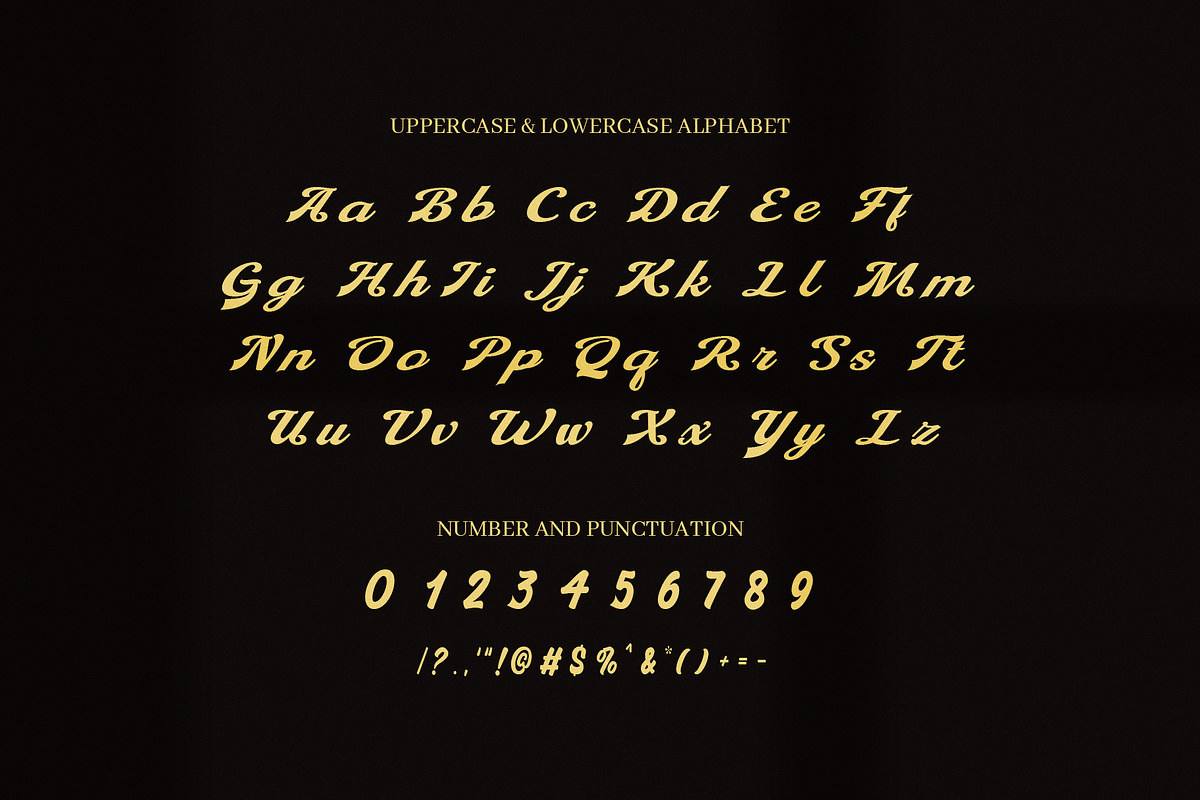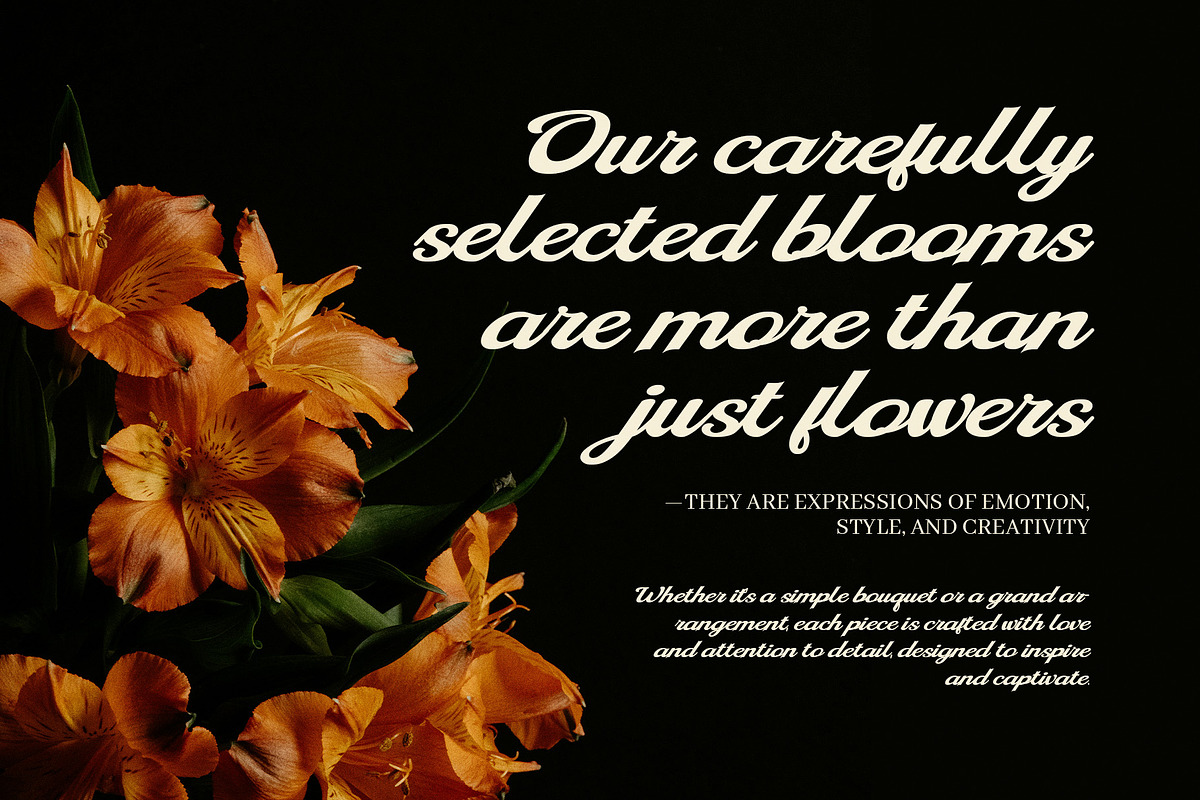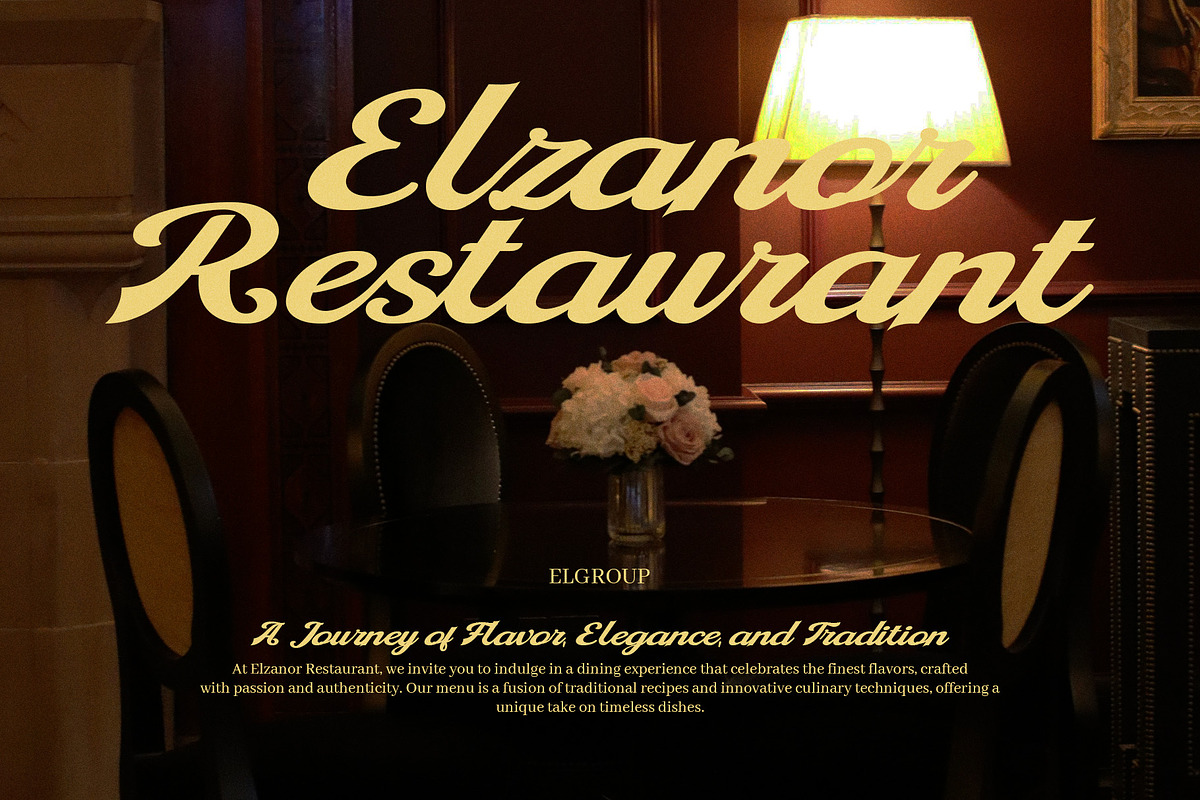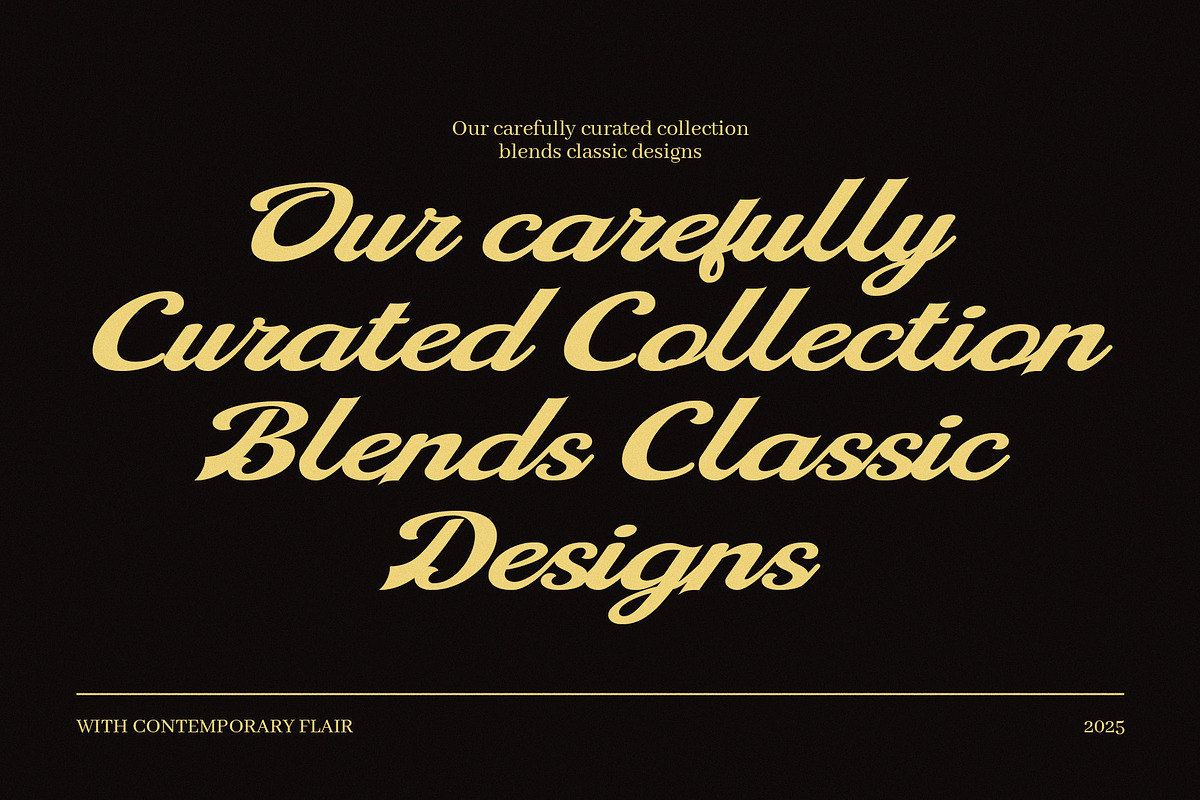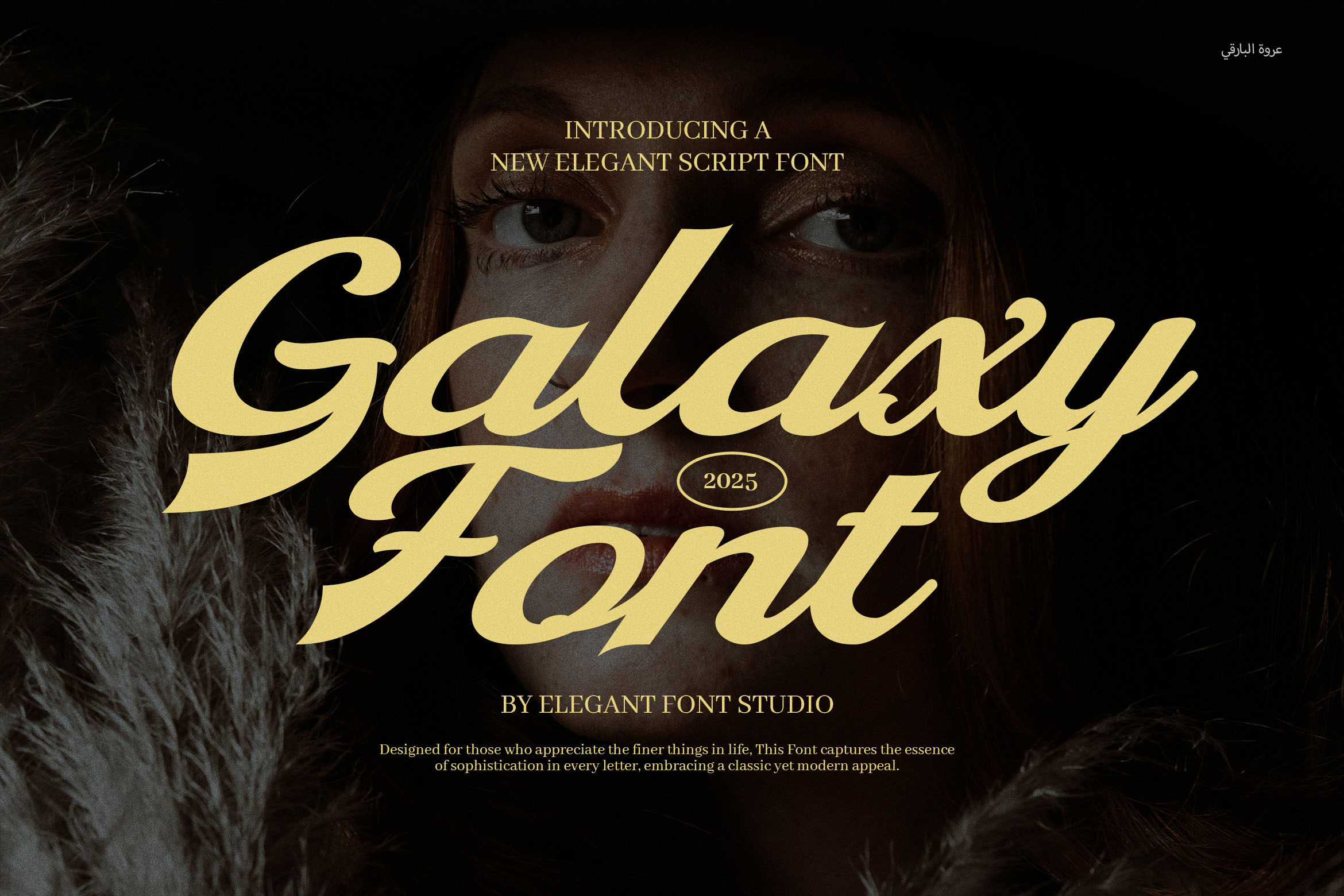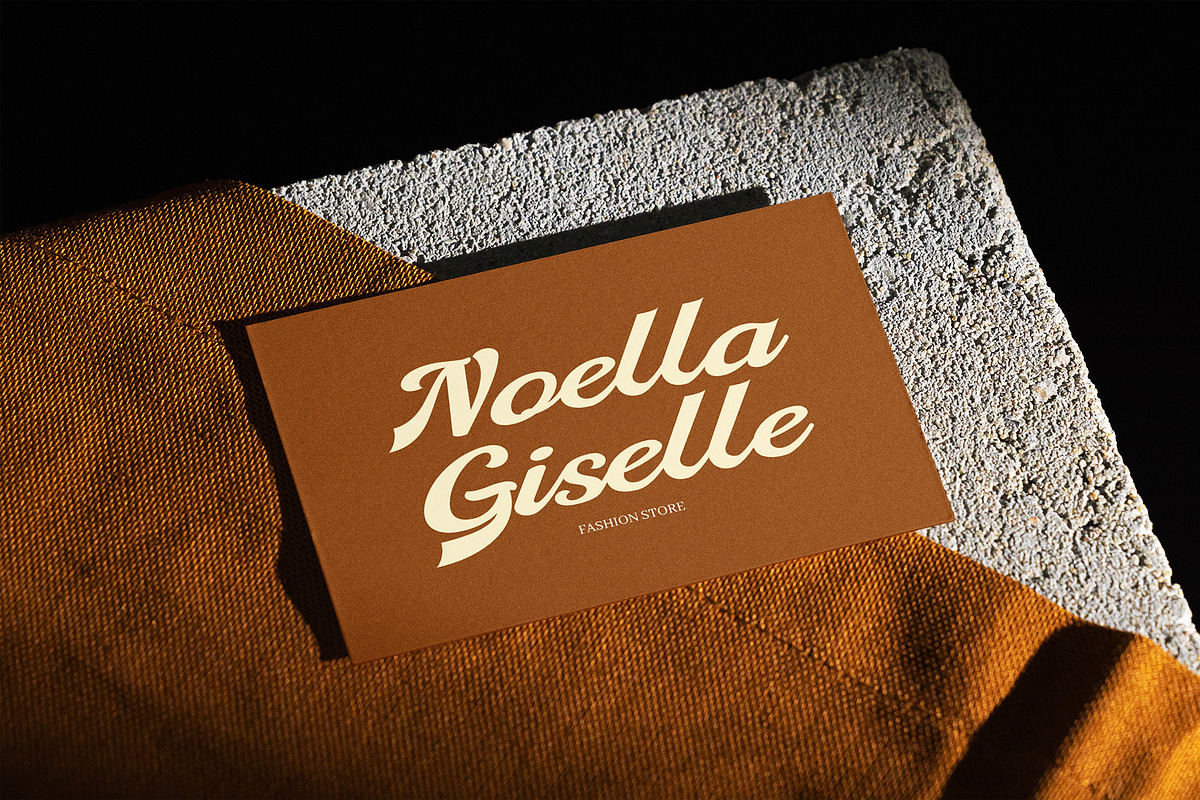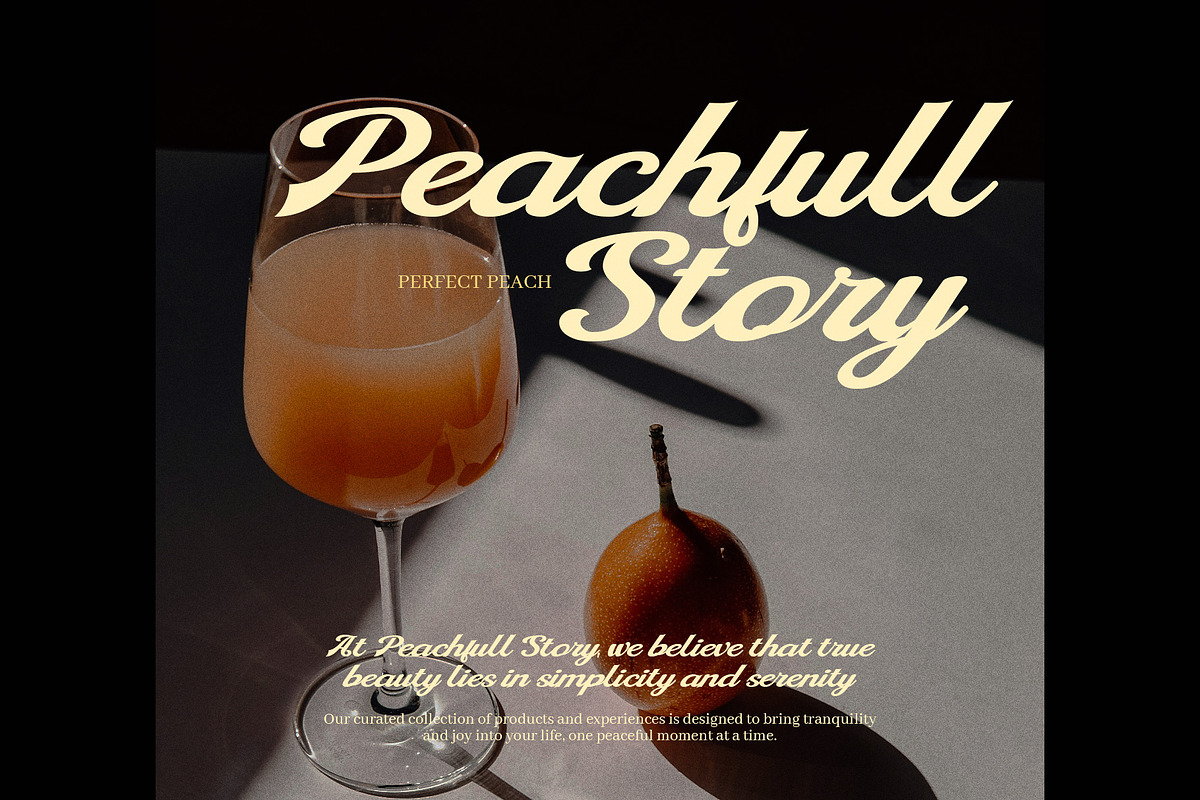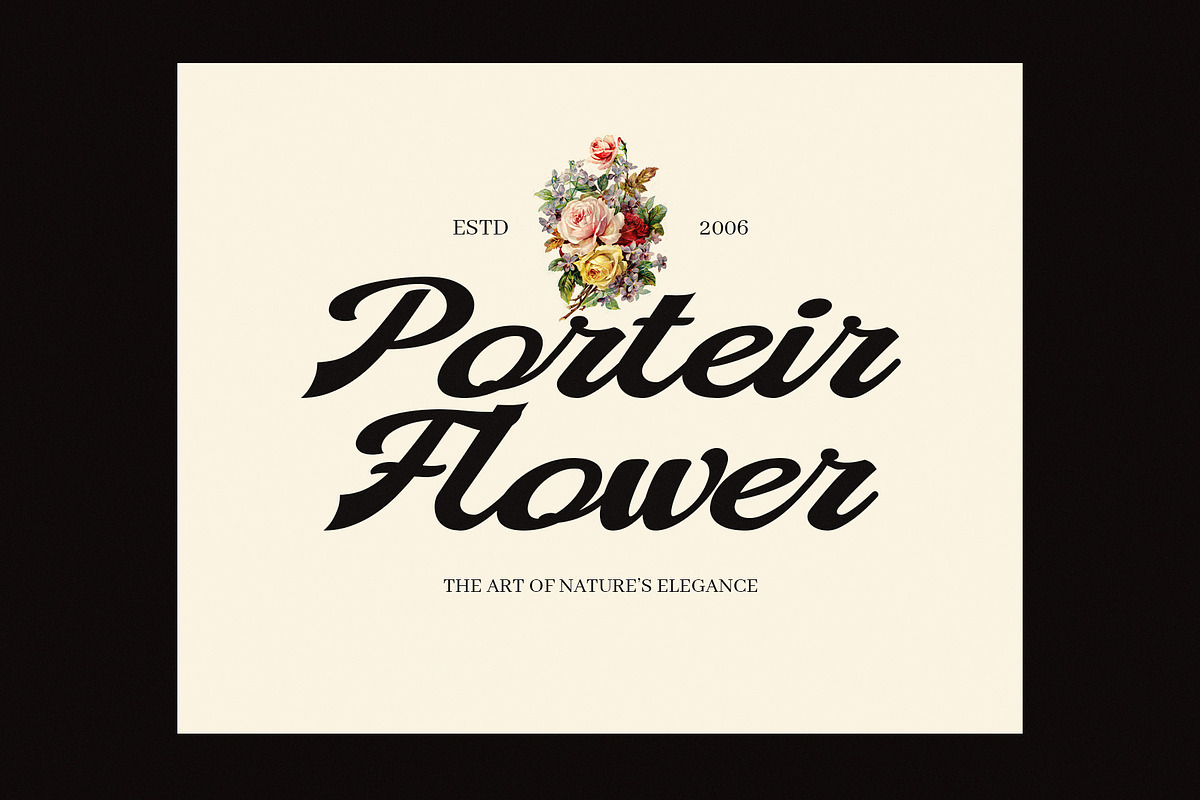
Galaxy Bold Script Font
Experience the perfect balance of strength and sophistication with Galaxy Bold Script Font. This elegant and classy script font offers beautifully crafted letterforms that combine boldness with refined calligraphy. Featuring a range of stylish ligatures and diverse calligraphy alternates, Galaxy Bold Script gives your projects a distinctive and luxurious look that commands attention.
Ideal for a wide variety of design needs, this font shines in branding, logos, weddings, invitations, magazines, posters, and more. Thanks to its bold yet graceful style, Galaxy Bold Script works beautifully across both large headlines and smaller text, making it a versatile addition to any designer’s toolkit.
What Makes Galaxy Bold Script Stand Out?
Bold & Elegant Design: A strong yet refined script that communicates luxury and class.
Varied Ligatures: Smooth, connected letters for natural and stylish text flow.
Multiple Calligraphy Alternates: Offers creative flexibility and unique styling options.
Wide Applications: Perfect for branding, business cards, wedding invitations, album covers, advertisements, websites, layouts, and more.
Highly Readable: Maintains clarity without sacrificing artistic style.
Designed for Business Use: Ideal for companies seeking a professional font that elevates their brand identity.
Whether you are a designer working on high-end branding or an enterprise looking for a sophisticated script font, Galaxy Bold Script delivers style and elegance in every character. Make your design projects stand out with this bold and luxurious typeface.